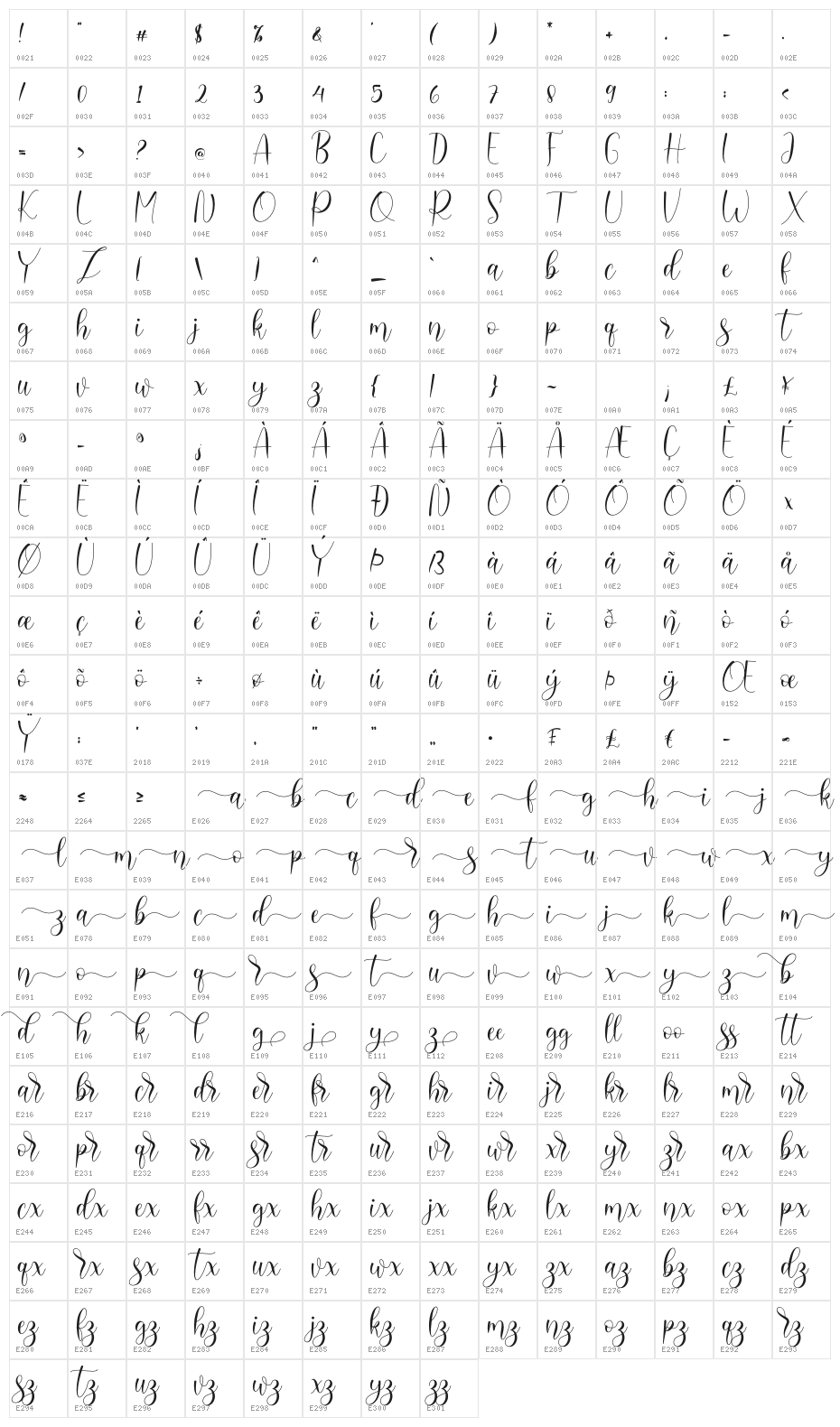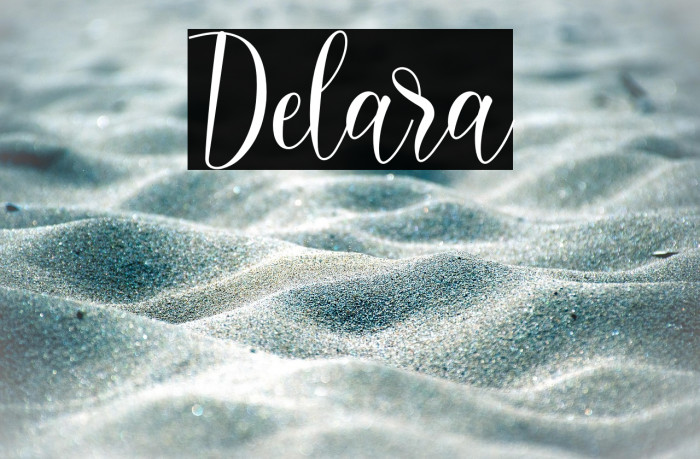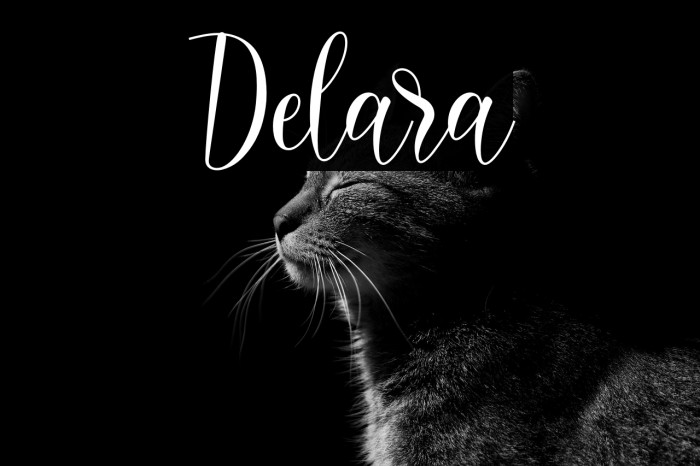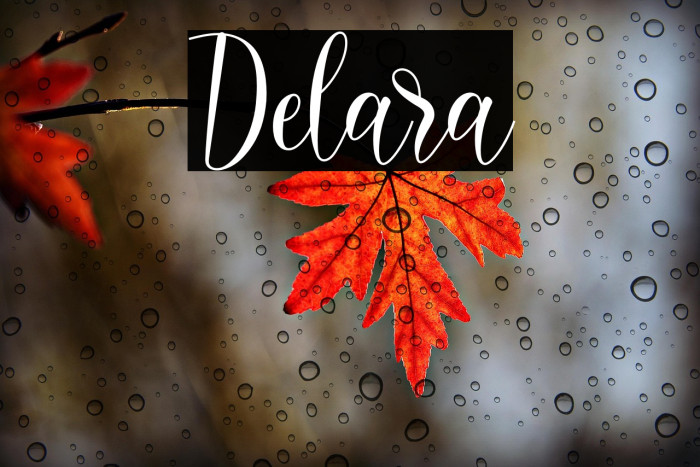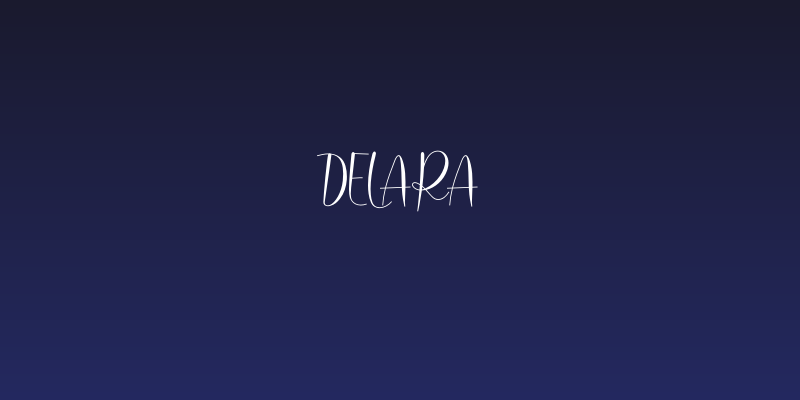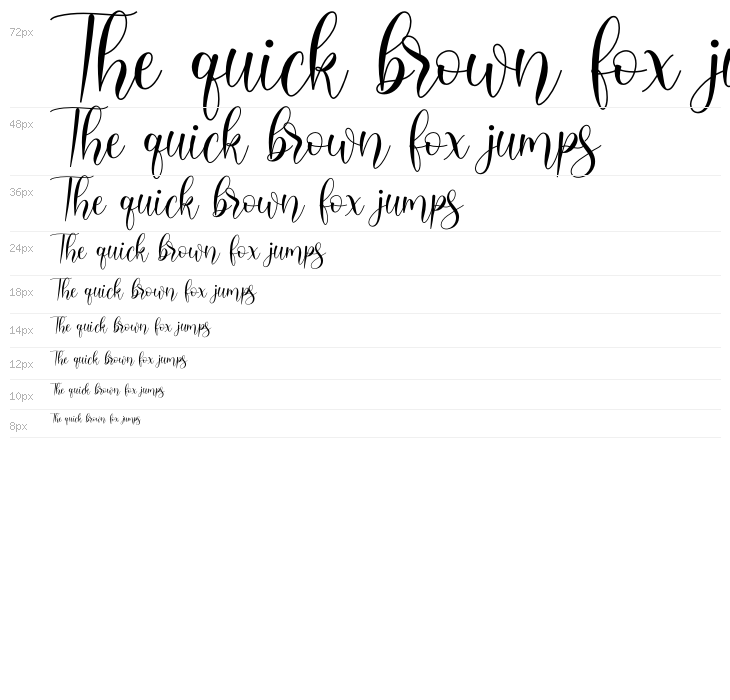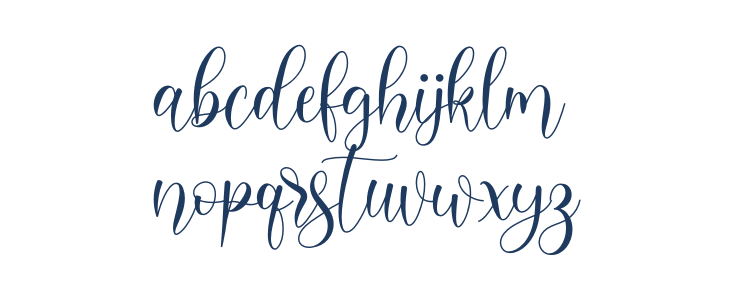
Delara Font
Delara Description
This font features an elegant and flowing script style, characterized by its smooth, cursive strokes and a playful yet sophisticated appearance. The uppercase letters exhibit a graceful, elongated form with gentle curves, while the lowercase letters maintain a consistent fluidity, enhancing readability. The numerals and special characters are crafted with the same attention to detail, ensuring a cohesive look across all glyphs. The overall design exudes a sense of modern elegance, making it suitable for a variety of creative applications.
| Use Case | Logos, Invitations, Decorative text |
| Proposed Projects | Ideal for wedding invitations, greeting cards, branding, and elegant packaging designs. |